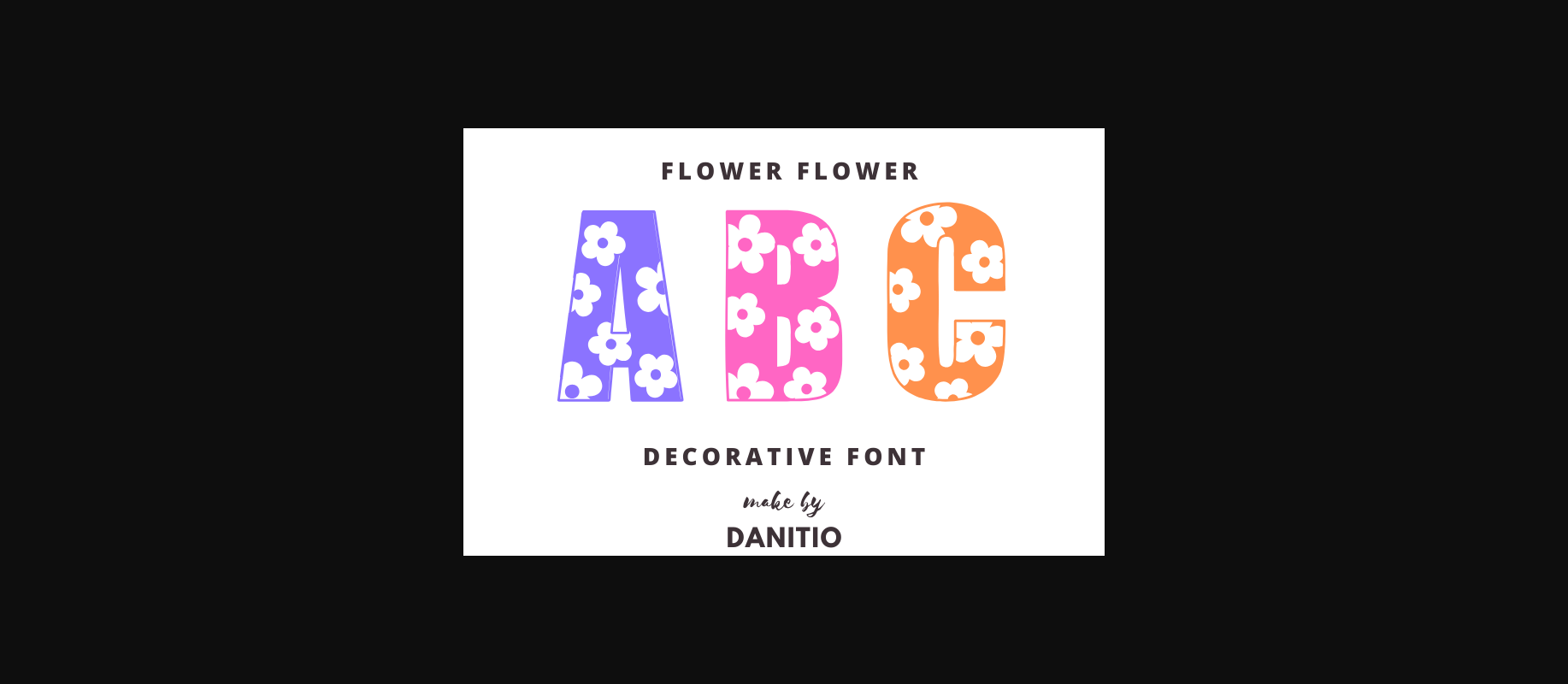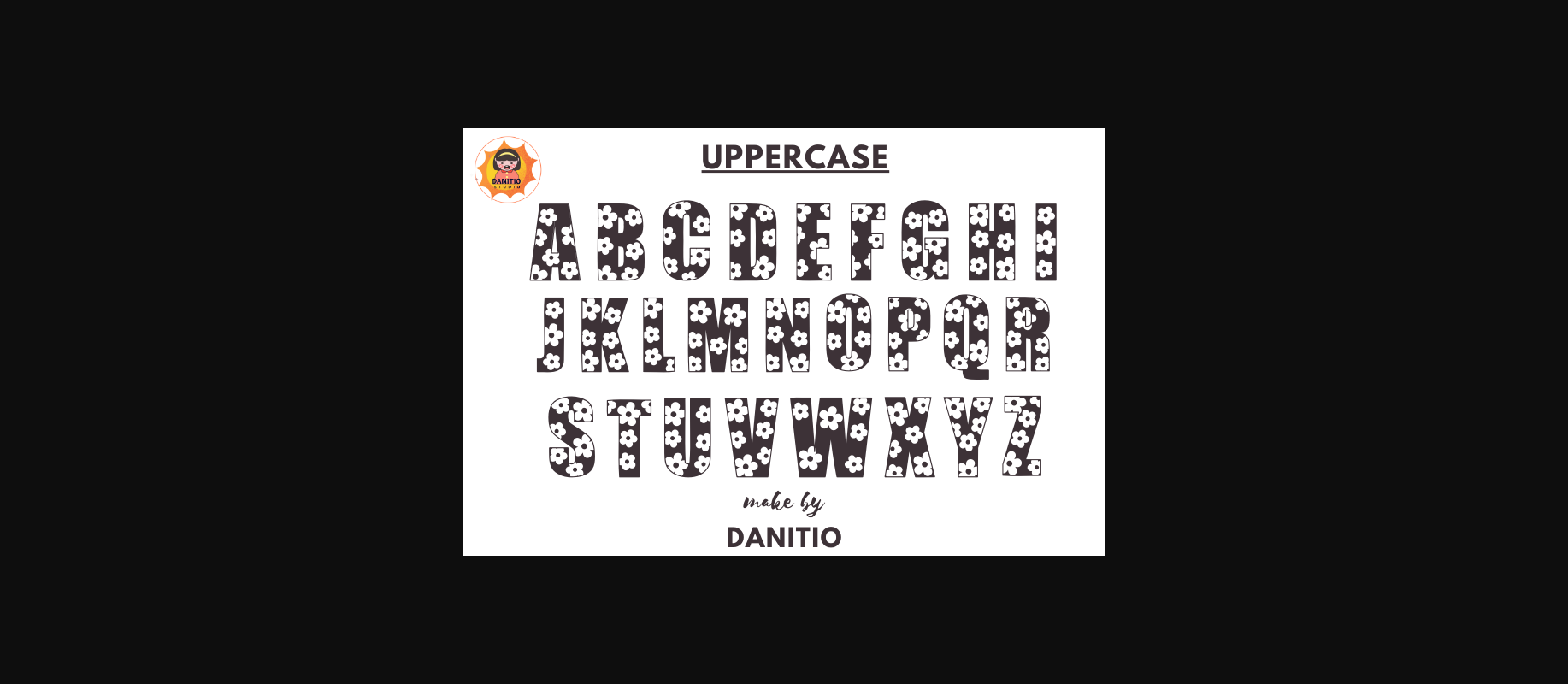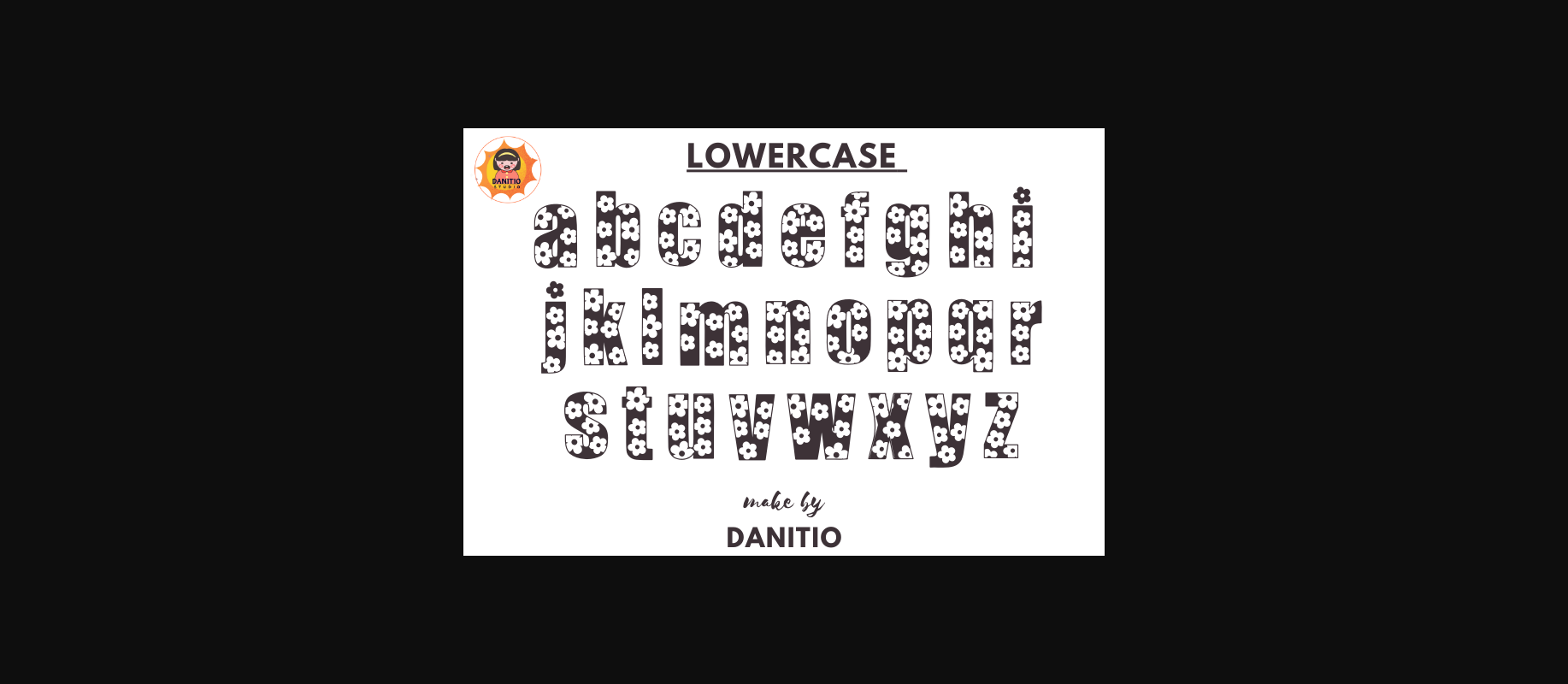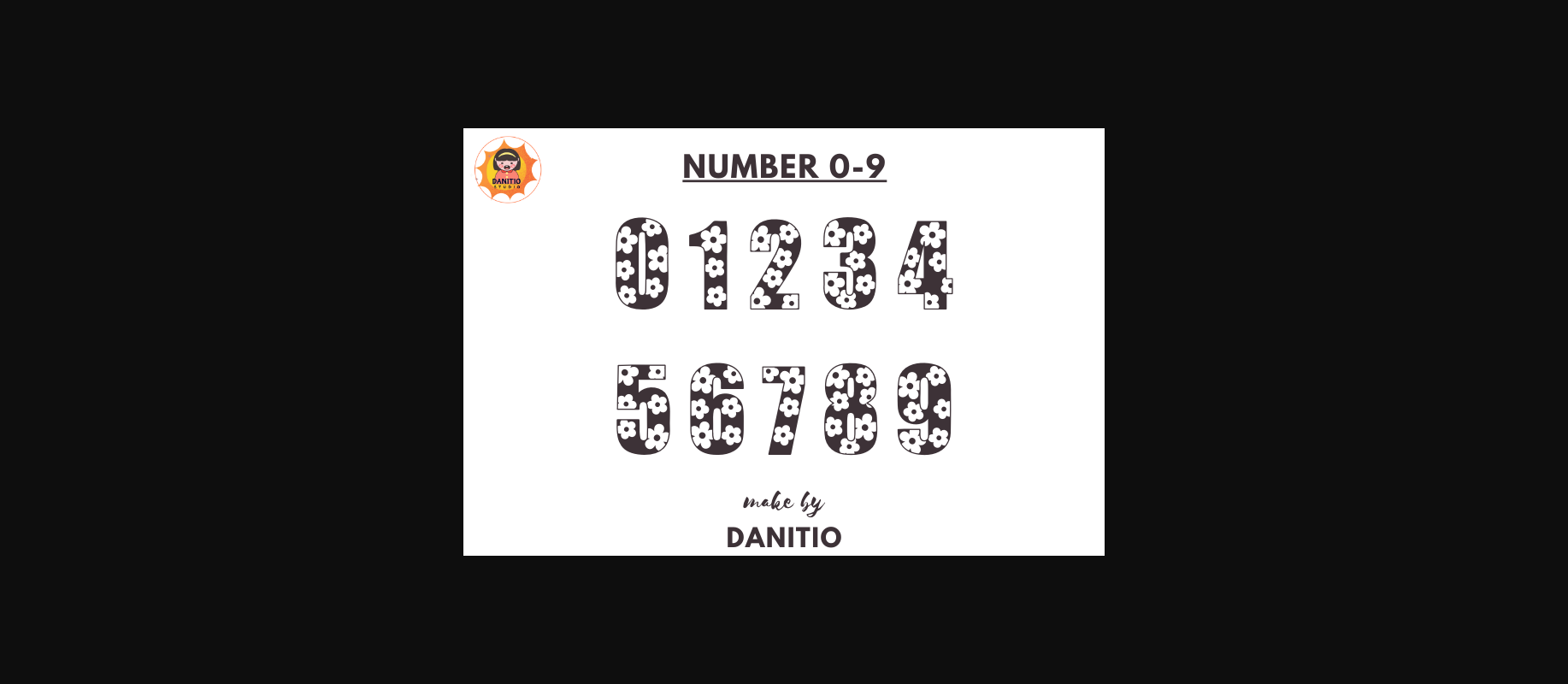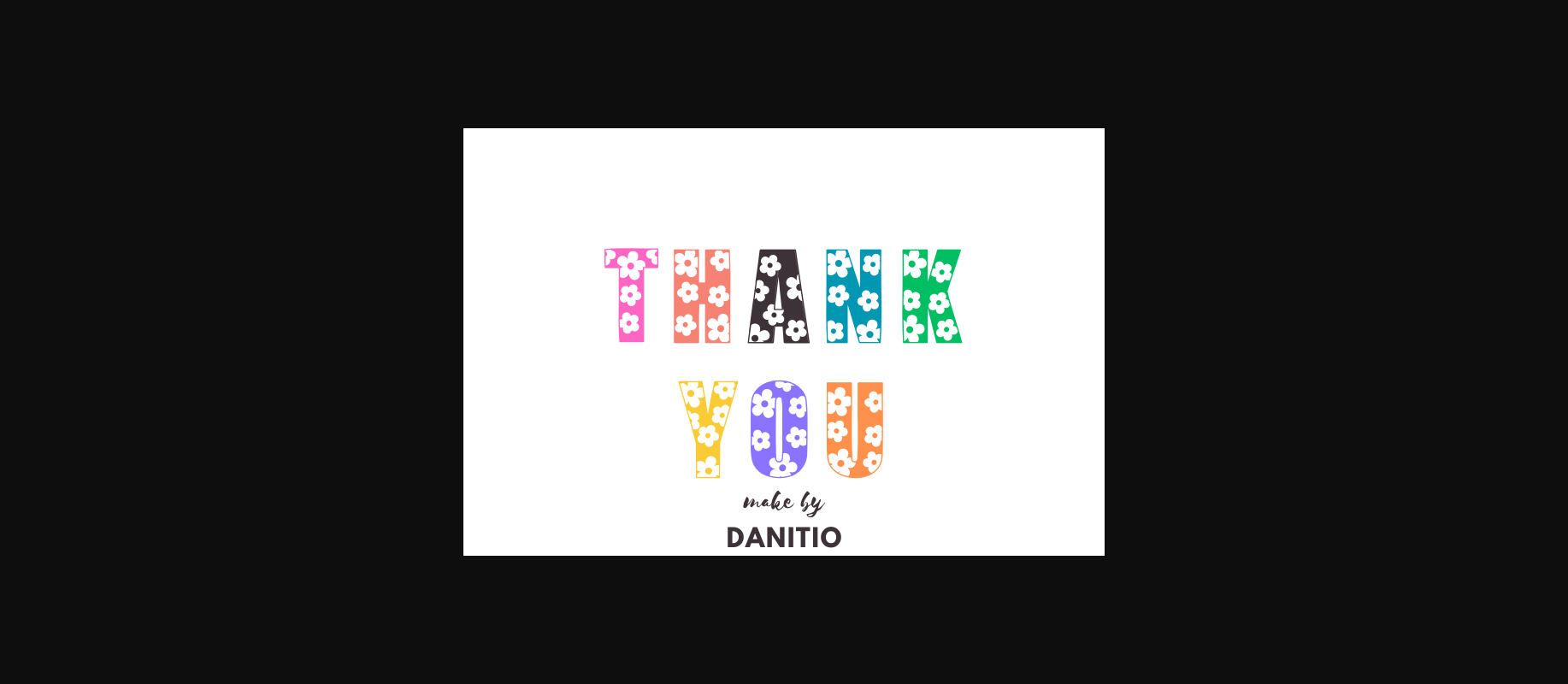
Flower Flower Font
About Flower Flower Font
Flower Flower is a fun and beautiful decorative font. The letters are decorated with many flowers. Perfect for your favorite projects like posters, flyers, and social media posts.